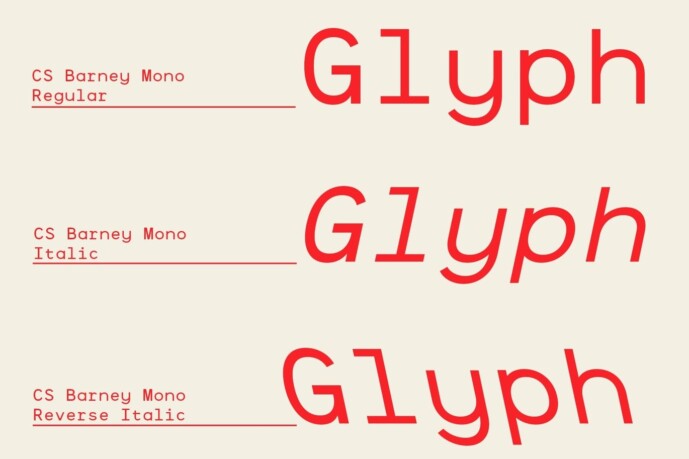
Barney Mono Font
Designer: Craft Supply Co.
Barney Mono Font is a modern monospaced sans serif font designed for clarity, precision, and balance. With its evenly spaced characters and clean design, it ensures consistency and readability, making it a versatile choice for a wide range of professional applications.
Ideal for coding and technical layouts CS Barney Mono’s monospaced layout is perfect for coding, programming, and technical documents. Its uniform spacing improves readability in environments where precision is paramount, providing a smooth experience for developers and technical designers alike.
Perfect for branding and creative projects CS Barney Mono extends its functionality beyond technical applications, providing a modern, structured aesthetic for brands and creative designs. Its clean, uniform appearance makes it ideal for logos, packaging and visual identities that require a contemporary, professional touch.
Versatility for a Clean, Consistent Design Whether you’re creating a technical interface, designing a sleek brand identity, or formatting structured documents, CS Barney Mono delivers clarity and balance. Its modern sans serif style, combined with its monospaced precision, ensures a clean, consistent look.